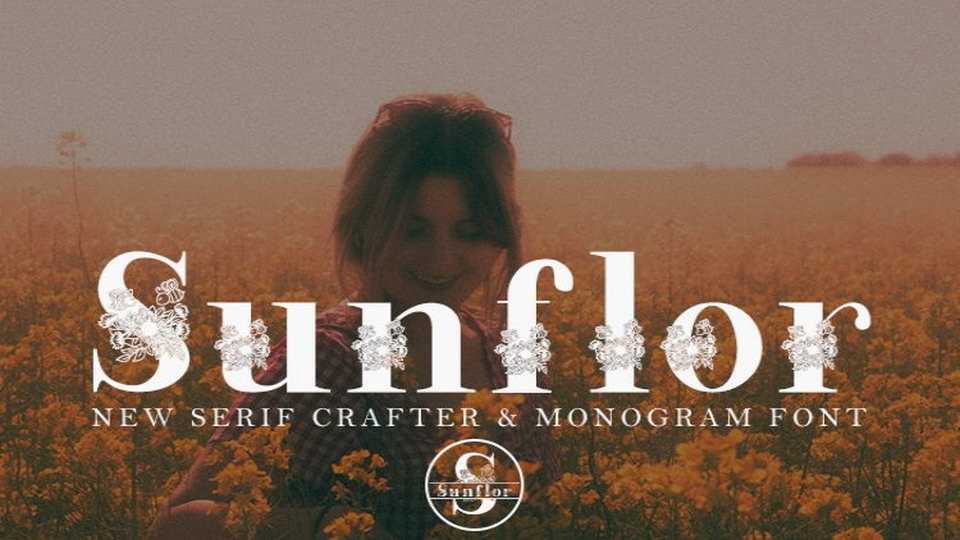
Download Sunflor font, a beautiful and elegant decorative serif typeface for crafts and monograms. Sunflor is very suitable for the use in nature-themed logos, initials, wedding invitations, print projects, posters and magazines.